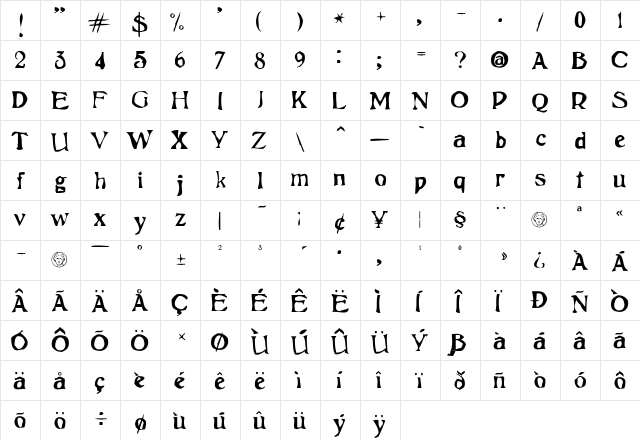
Psicopatologia de la Vida Cotidiana Regular
| Foundry | Daniel Leal Werneck |
| Designer | Daniel Leal Werneck |
Design Context for Psicopatologia de la Vida Cotidiana Typeface
Psicopatologia de la Vida Cotidiana is a composed and adaptable typeface that performs quietly and consistently across a wide range of design contexts.